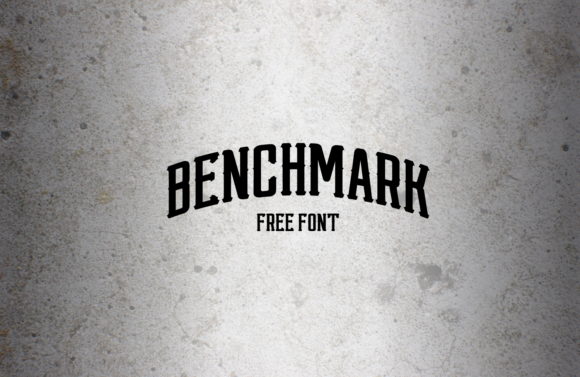
The Perfect Typographic Match
Imagine you’re working on a design project, and you need that one element to make it truly stand out. The words, the colors, the layout – everything is perfect, but something’s missing. You scroll through your font library, searching for that one special font that will elevate your design to the next level. And then, you find it – Benchmark Font.
Benchmark Font is a bold display font that’s designed to make a statement. Whether you’re working on a logo, a headline, or a title, this font is sure to grab attention. Its unique style and versatility make it a valuable asset for any designer’s library.
With Benchmark Font, you’ll be able to create designs that are truly unforgettable. Its bold and cool aesthetic is perfect for a wide range of projects, from fashion and lifestyle to technology and beyond. So why settle for ordinary when you can have extraordinary? Try Benchmark Font today and see the difference it can make in your designs.
Benchmark Font Key Features
- Unique Characteristics: Benchmark Font features a unique blend of modern and traditional design elements, making it stand out from other fonts in its class.
Benchmark Font Review
I recently had the chance to work with the Benchmark Font, and I have to say, it’s an interesting specimen. Here are some of its standout features:
- ✨ Beautifully crafted letterforms that evoke a sense of classic elegance
- ✨ Highly legible, making it perfect for body text and titles
- ✨ Robust character set, covering multiple languages and character sets
However, I did encounter some limitations that may make it less appealing to some designers:
- ⚠️ Limited expressive range, making it less suitable for more creative projects
- ⚠️ Some users may find the font’s classic look a bit too conservative or dated
- ⚠️ Font weight variations could be more refined, particularly in the ultra-light and bold ranges
Overall, I think Benchmark Font is a solid choice for projects that require a classic, elegant look. While it may not be the most exciting font out there, it’s reliable, versatile, and gets the job done. If you’re looking for something with a bit more pizzazz, you may want to consider other options. But for straightforward, timeless designs, Benchmark Font is a good bet.
Tips for Getting the Most Out of Benchmark Font
To get the most out of Benchmark Font, follow these tips:
1. Use it for headings and titles to create a professional look.
2. Experiment with different font sizes and colors to create visual interest.
3. Combine Benchmark Font with other fonts to create a unique and stylish look.
Benchmark Font is commonly used in:
1. Corporate branding and marketing materials.
2. Digital signage and display advertising.